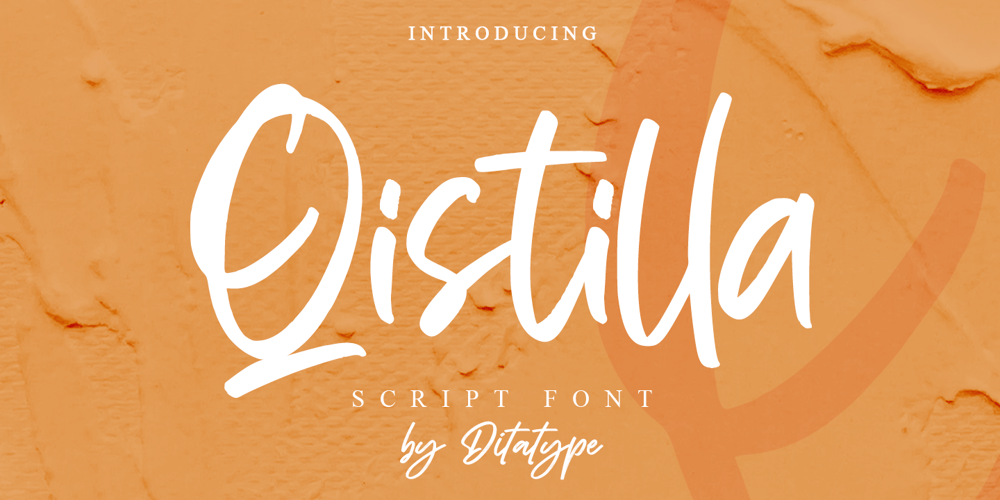
Qistilla Font Family was designed by Donis Miftahudin and published by Ditatype. Qistilla contains 1 styles and family package options. Qistilla is a casual handwritten font. Made for any professional project branding that need a modern and attractive typeface. It is the best for logos, branding and quotes. Every letter has a unique and beautiful touch.Includes:Qistilla (OTF)Features: Standart Ligatures Multilingual Support PUA Encoded Numerals and Punctuation Thank you for downloading premium fonts from Dita Type